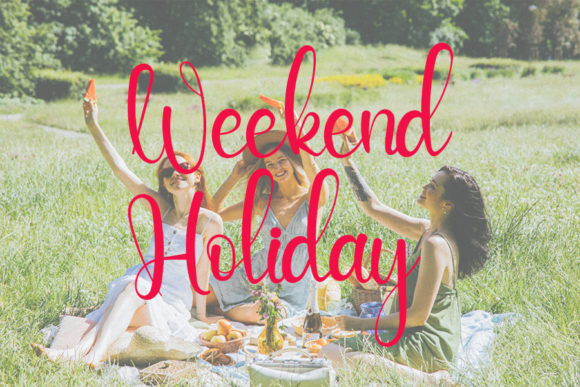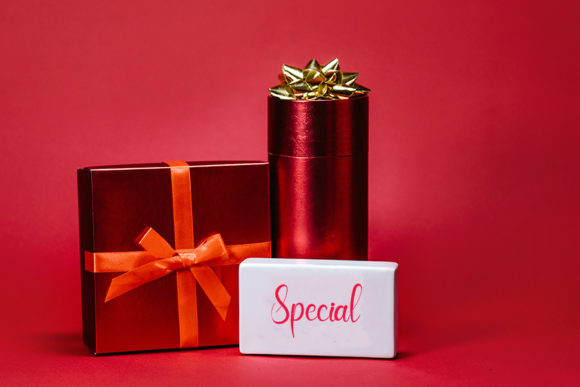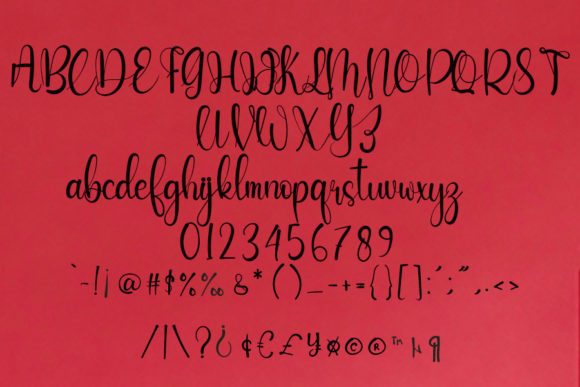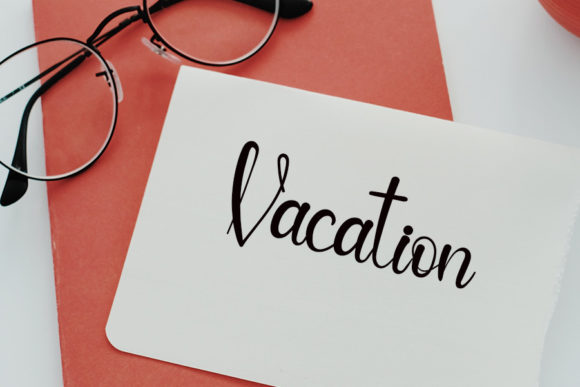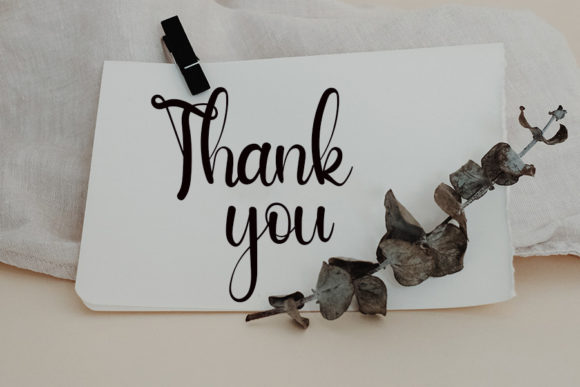
Discover the Perfect Font for Your Next Creative Project
Have you ever stared at a blank page, pen in hand, waiting for the perfect phrase to inspire your next design project? It’s that moment when creativity strikes, and you know exactly what you need to bring your vision to life. For designers, the right font can make all the difference between a good design and a great one.
Enter the Best Cheese Font, a modern handwritten font that combines the elegance of classic calligraphy with a fresh, modern vibe. Its balanced and varied strokes make it the perfect choice for adding a touch of personality to your projects. Whether you’re designing a logo, creating a marketing campaign, or crafting a beautiful piece of typography, the Best Cheese Font is sure to elevate your work to the next level.
Key Features of “Best Cheese Font”
- Font Family: Best Cheese Font is a unique, hand-drawn font family that includes 12 styles, ranging from bold and playful to elegant and sophisticated.
- Unique Characteristics: Features a distinctive, hand-drawn design with intricate details and subtle texture, giving it a one-of-a-kind look and feel.
Designer Review: Best Cheese Font
At first glance, Best Cheese Font is an intriguing choice. The unique character set ✨ is a standout feature, making it a great option for designers looking to add some personality to their projects. The font’s quirky, handwritten feel is perfect for creating a friendly and approachable tone.
Another strength of Best Cheese Font is its versatility ✨. It can be used for a wide range of applications, from branding and advertising to digital products and packaging. The font’s bold and playful nature makes it an excellent choice for grabbing attention and conveying a sense of fun.
- ⚠️ Limited legibility: In smaller text sizes, the font can become difficult to read. This may be a concern for designers who need to use the font in body text or for longer passages of text.
- ⚠️ Lack of consistency: The font’s irregularities can sometimes make it feel inconsistent. This may be a problem for designers who value precision and control in their typography.
Overall, Best Cheese Font is a fun and quirky font that can add a lot of personality to a project. However, designers should be aware of its limitations and use it judiciously. With careful consideration and application, Best Cheese Font can be a valuable addition to any designer’s toolkit.
The Best Cheese Font is perfect for adding a playful touch to your designs. Use it for:
- Food and drink labels
- Children’s books and educational materials
- Party invitations and social media graphics
Remember to use the Best Cheese Font sparingly and in context to avoid overwhelming your design.
Montserrat is a popular sans-serif font that works well for body text and headlines. It’s highly legible and versatile, making it suitable for a wide range of design projects. Compared to Best Cheese Font, Montserrat has a more modern and clean look, while Best Cheese Font has a more playful and casual feel.
Playfair Display is a luxurious and elegant serif font that’s perfect for high-end branding and packaging. It’s ideal for designers who want to add a touch of sophistication and refinement to their designs. Unlike Best Cheese Font, which is more casual and informal, Playfair Display has a more formal and sophisticated tone.